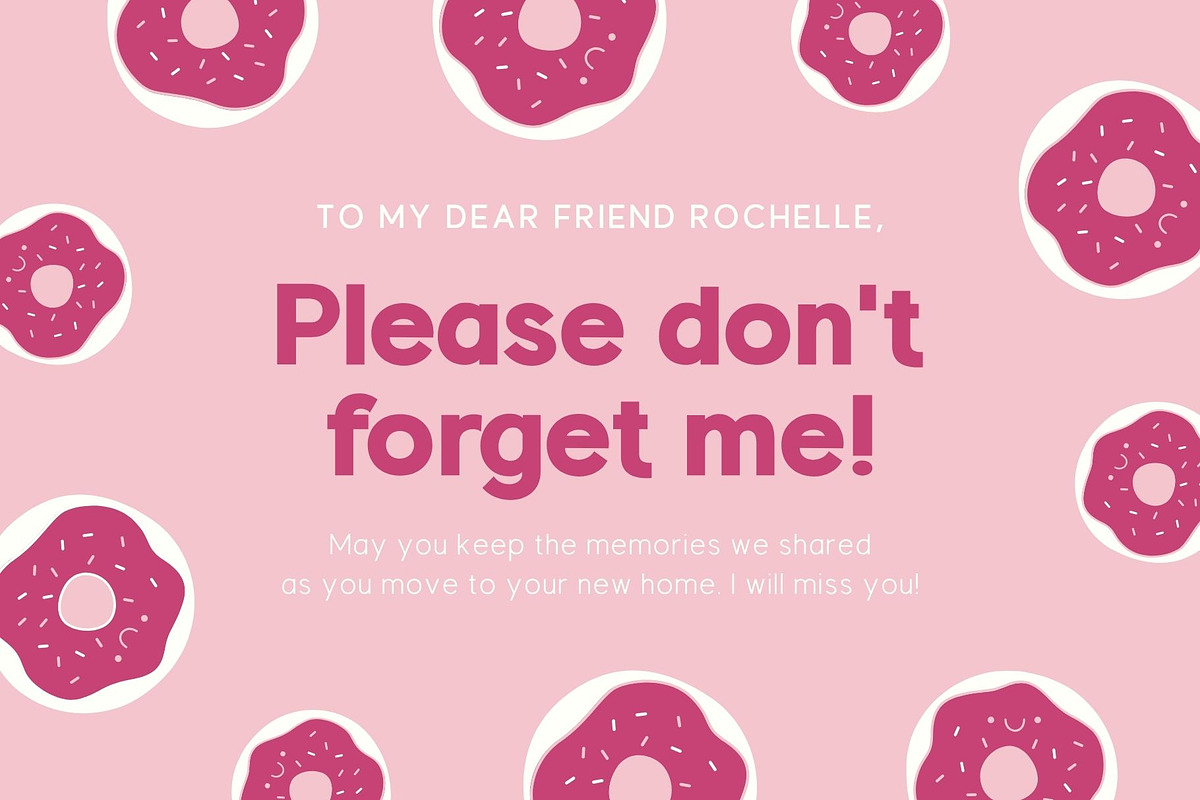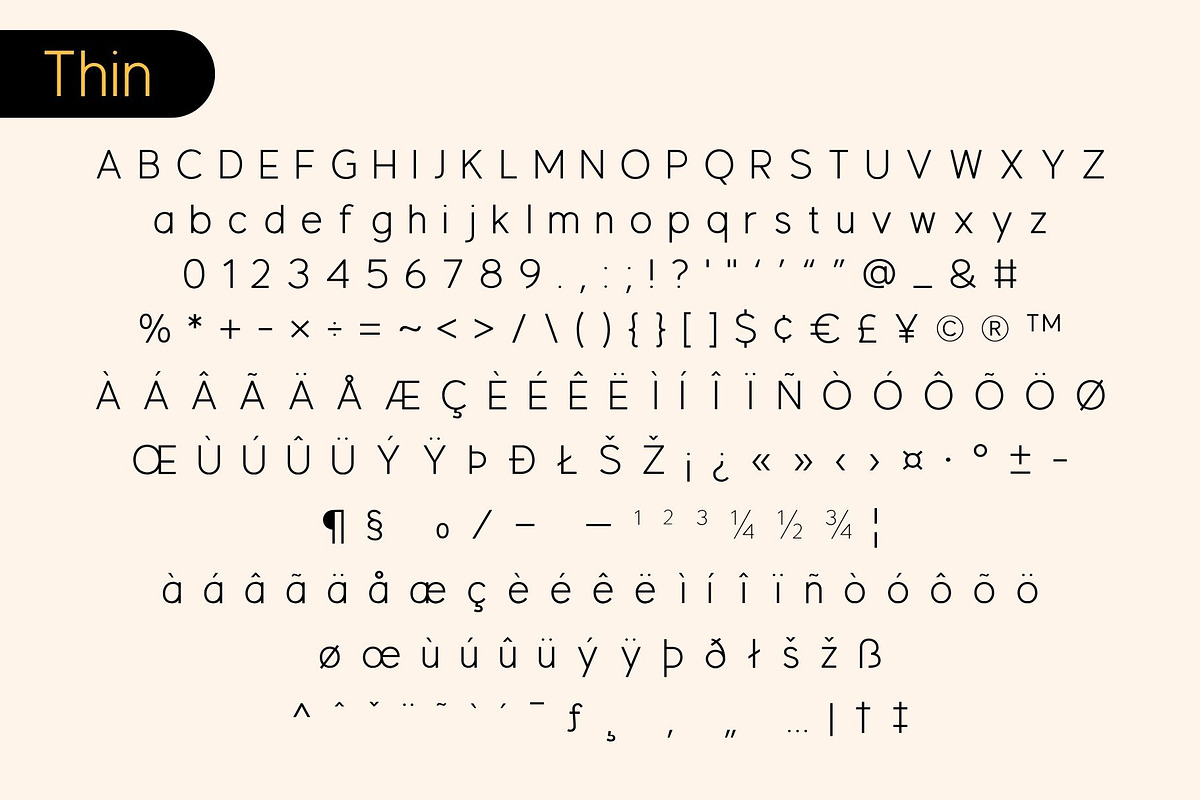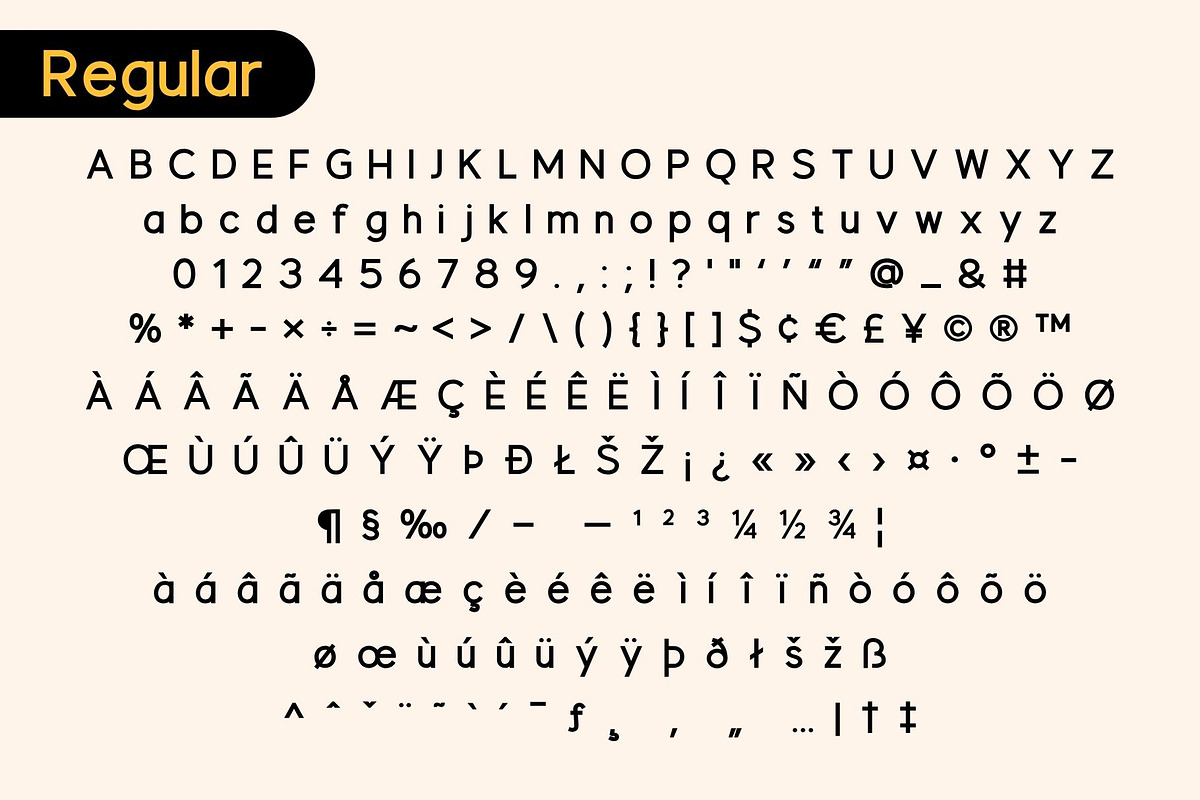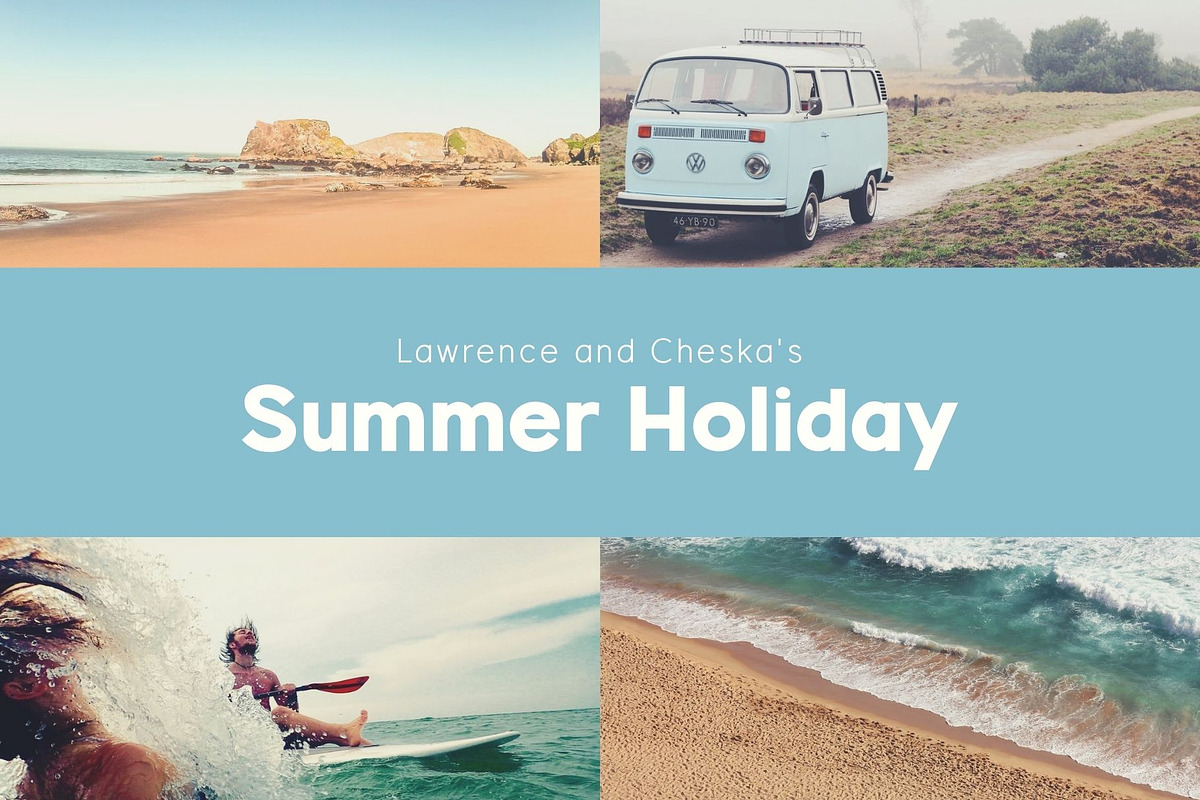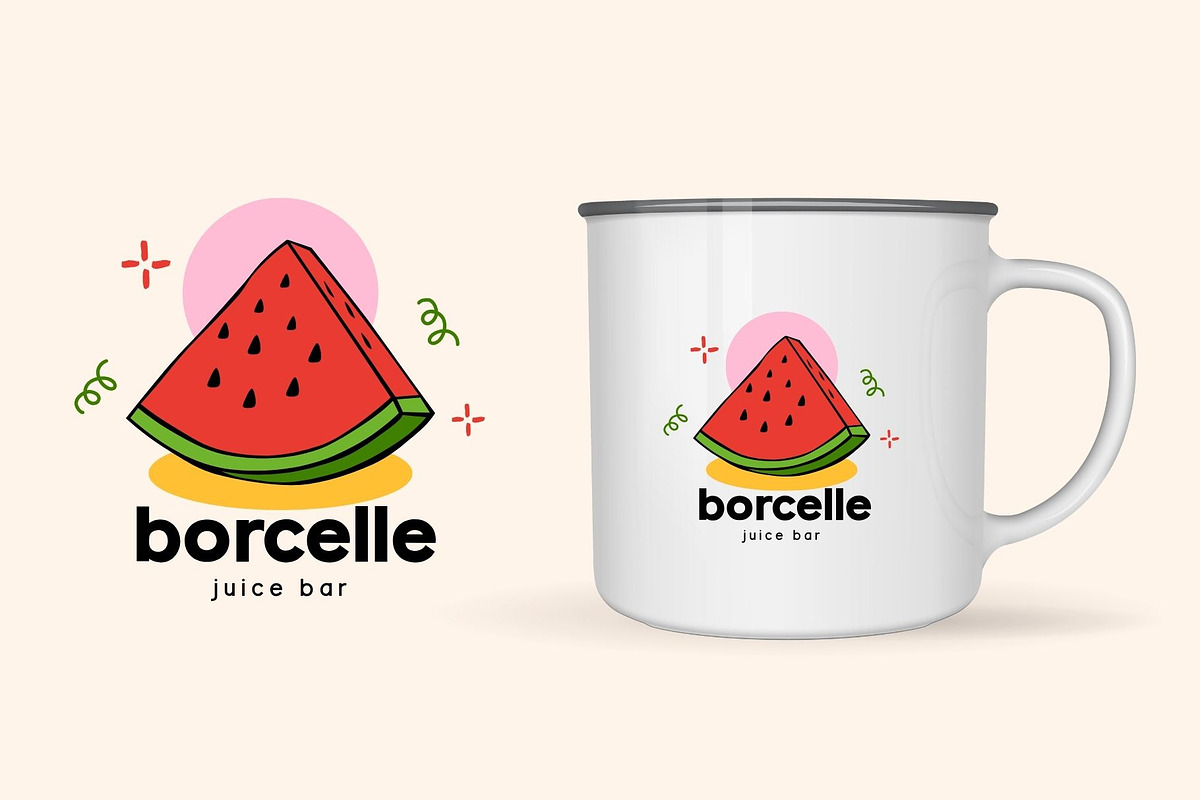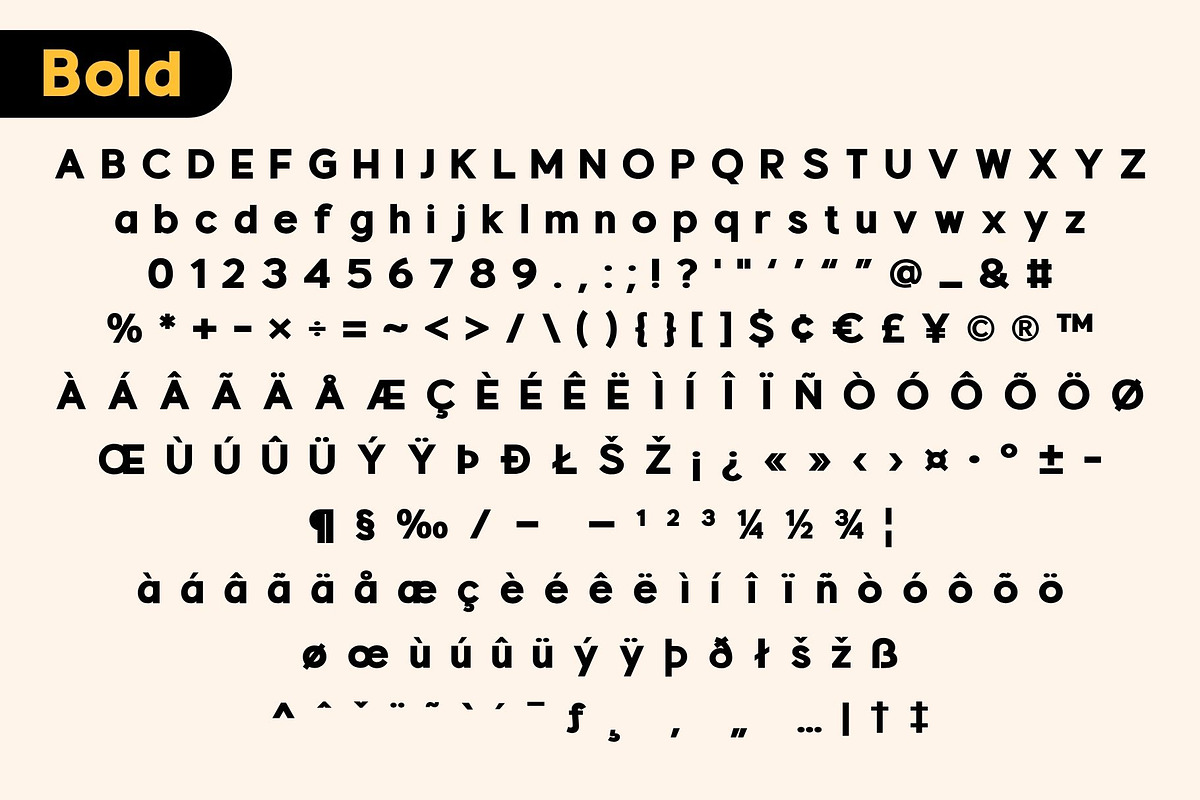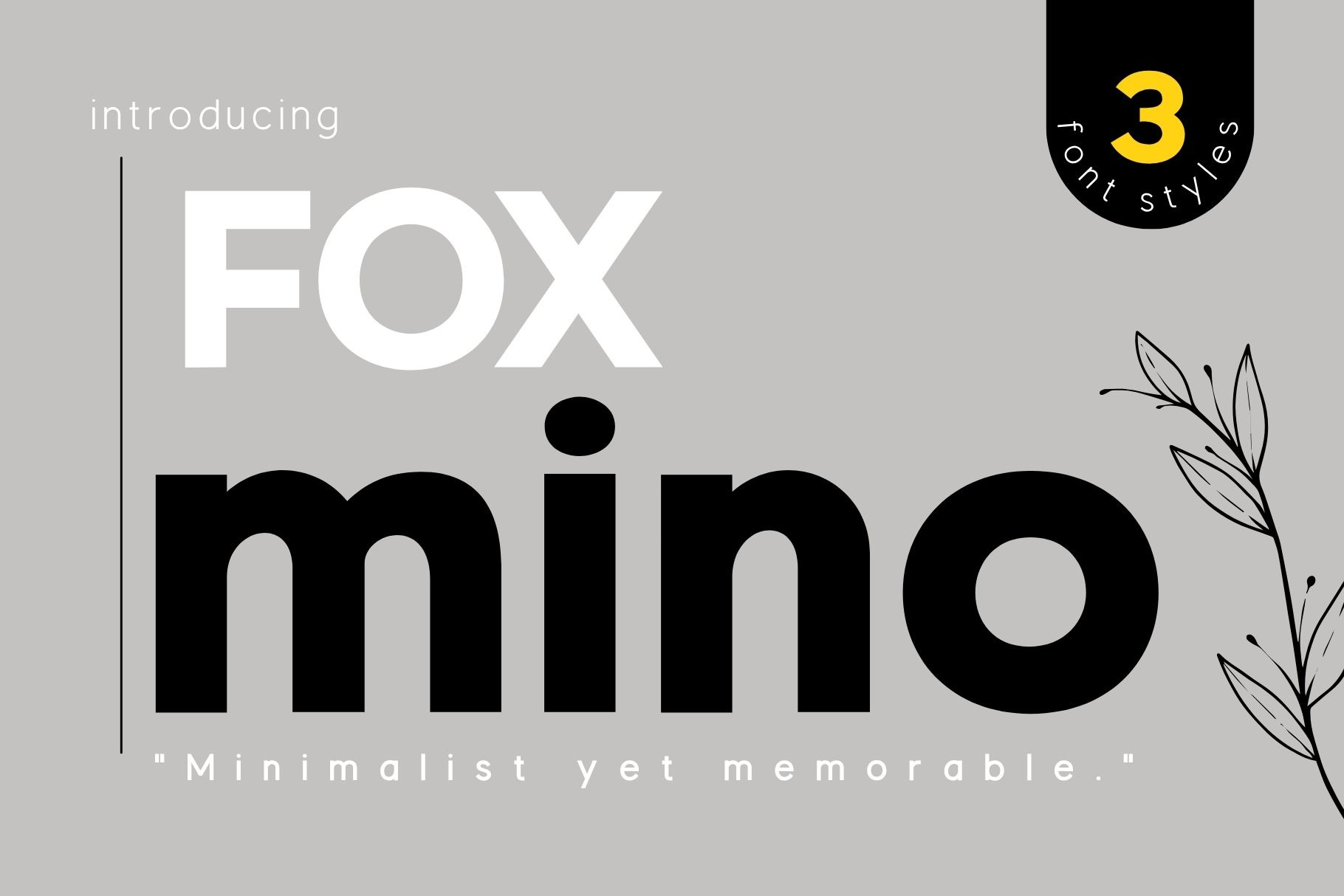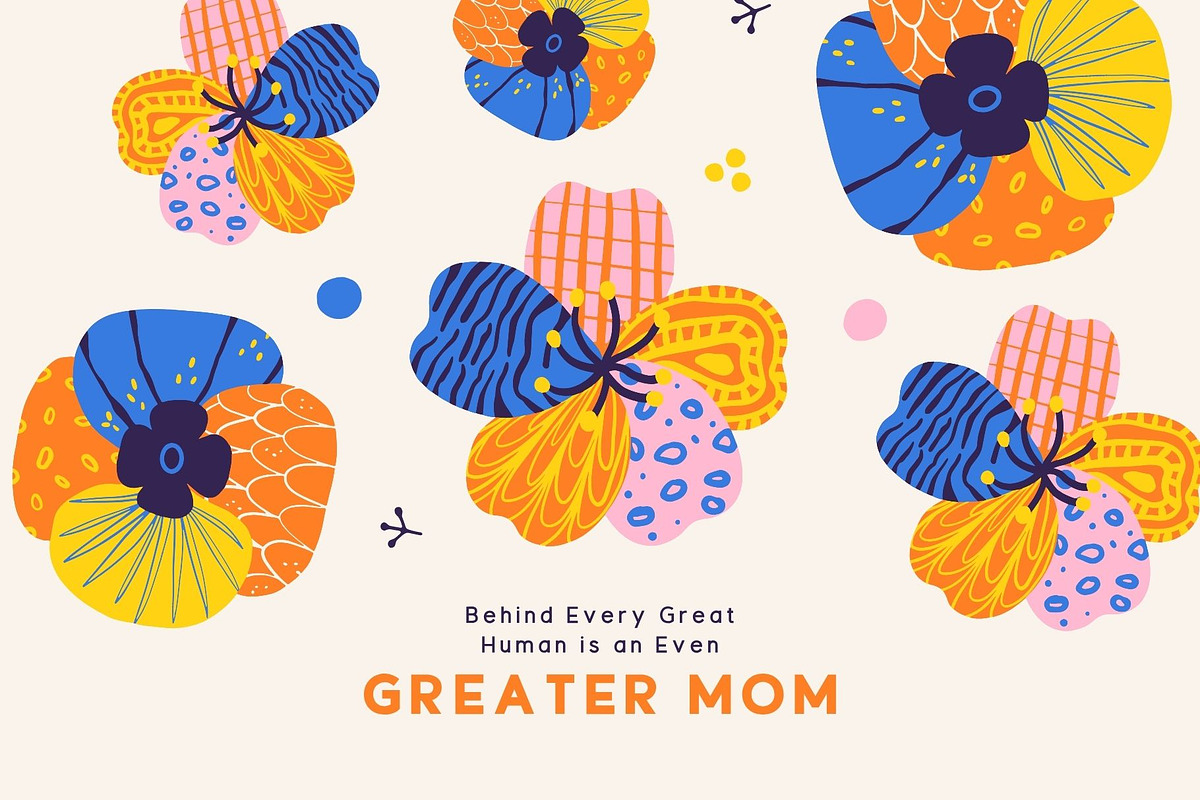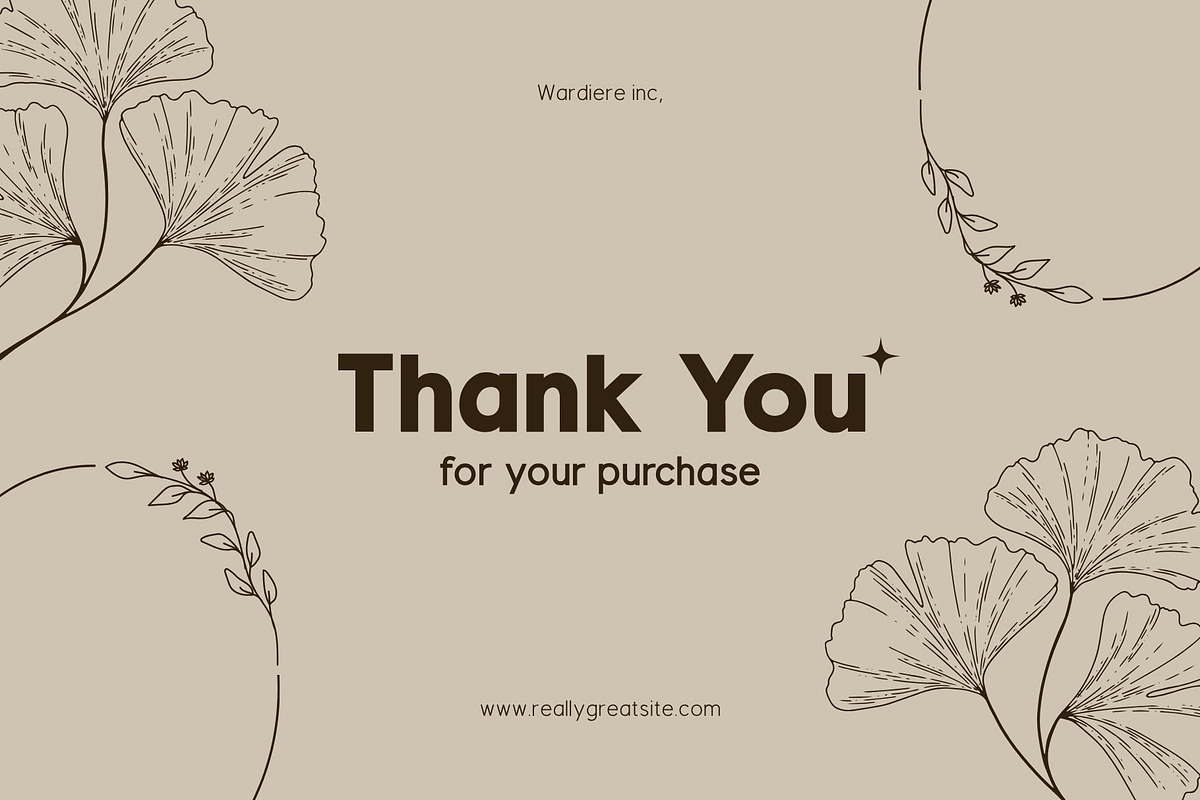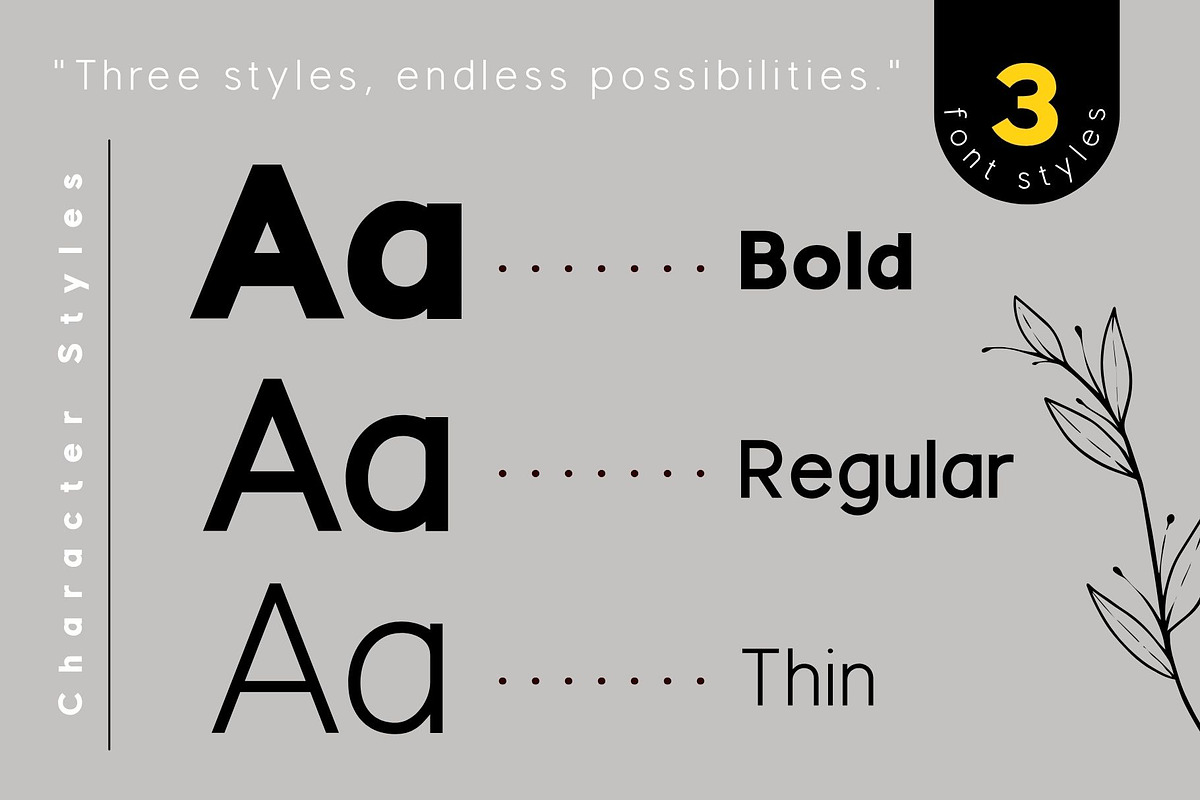
Fox Mino 3 Font Styles
Fox Mino is a clean and contemporary sans serif font family that comes in 3 versatile styles: Bold, Regular, and Thin. Designed with a modern aesthetic in mind, Fox Mino features smooth curves, balanced proportions, and a friendly yet professional feel — perfect for a wide range of creative projects.
Whether you're working on branding, packaging, headlines, logos, or even social media graphics, Fox Mino adapts effortlessly to your design needs.